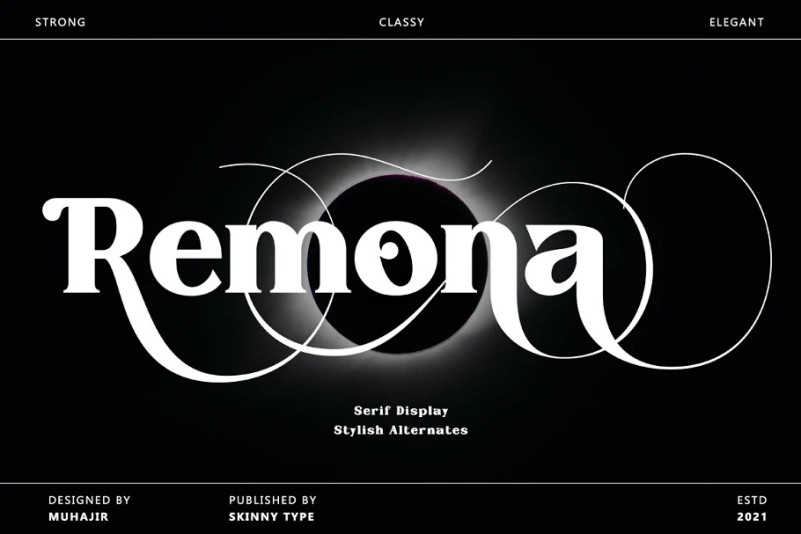
Remona Font
Remona Serif Font, is a confident serif. Designed to reflect nature, it creates a sense of softness and natural expression. We pushed the concept in a usability-focused direction, to work as a bold tool and a beautiful communicator.
Remona allows for fluid designs in 3 styles. Regular, Italic, Outline and Latin based main language. The right slant advances aesthetics, brings energy and makes it suitable for modern design.
The type family blends organic curves and soft repetition into strong and harmonious types. At large dot sizes you can appreciate the shape of the letters, while the same control and focus creates an even texture for small dot sizes and long reads. Fonts extend their use by providing a variety of unique language and style supports.
The Remona character set combines additional symbols, style alternatives, unique binding, and case sensitive punctuation – resulting in a stable, hardworking family ready to tackle projects of any size.